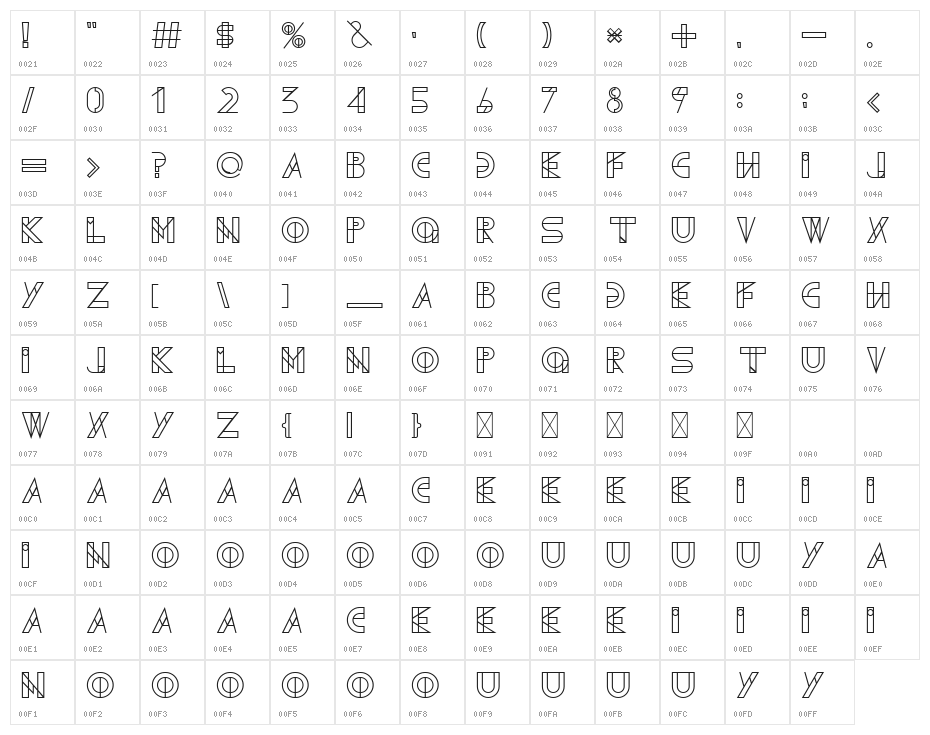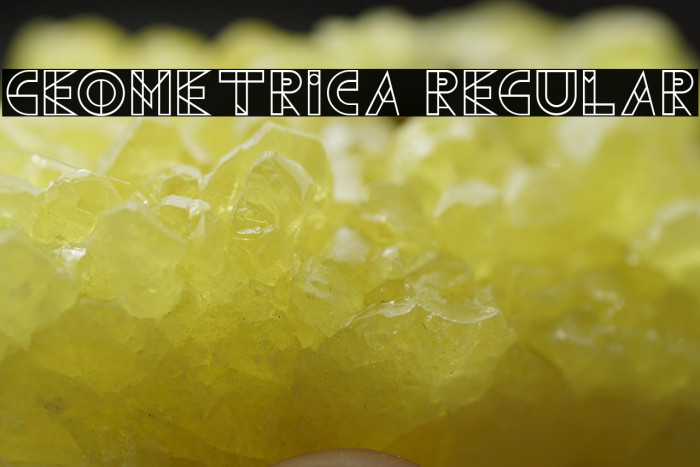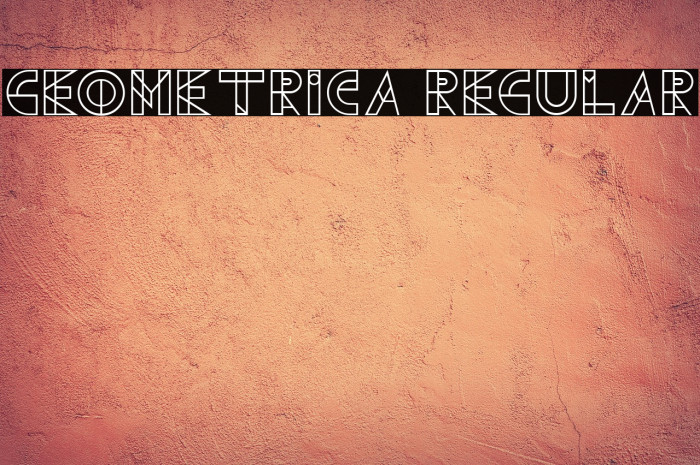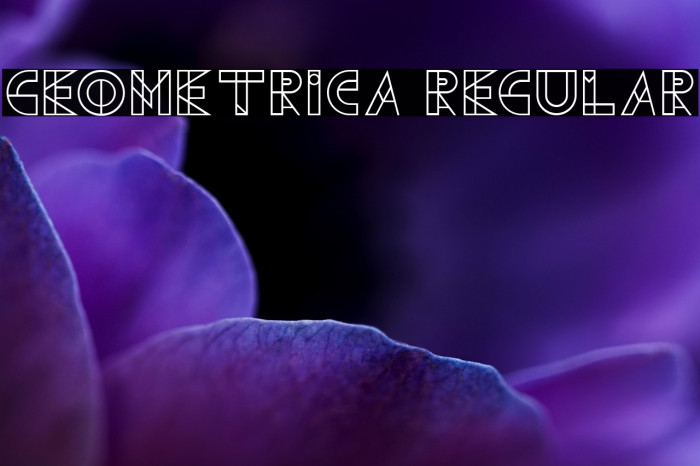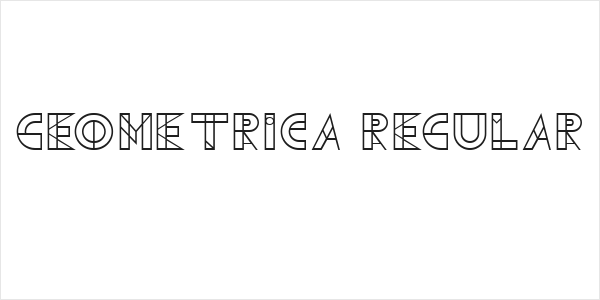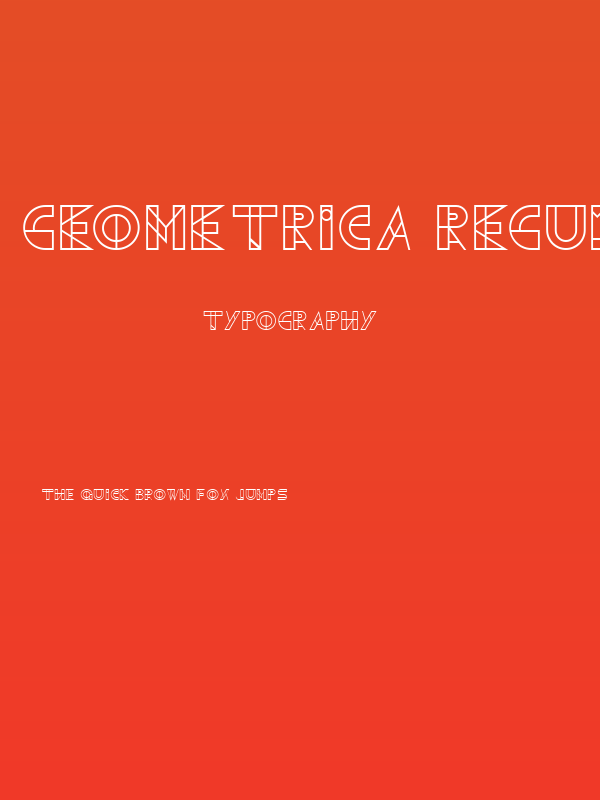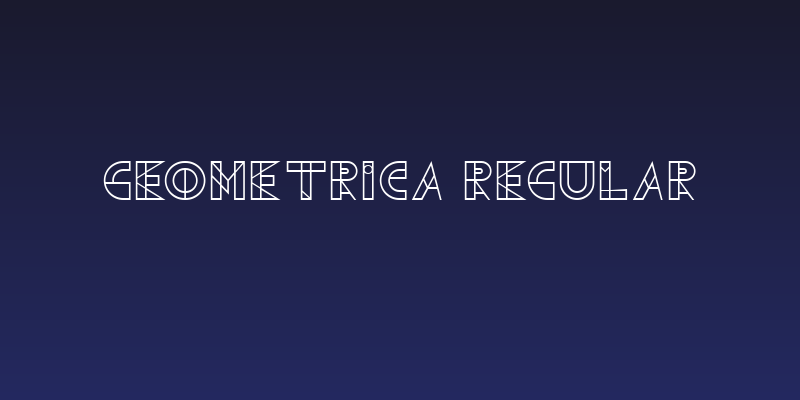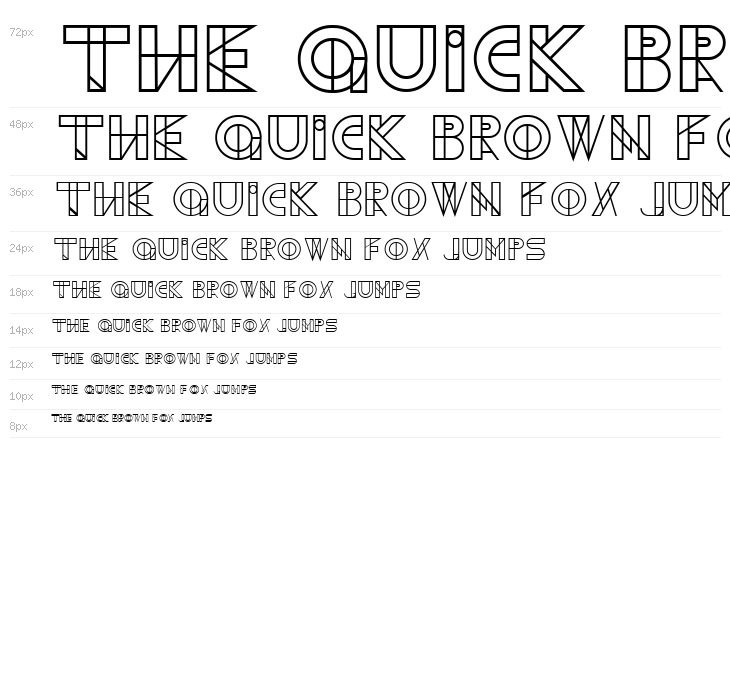
Geometrica Regular Font
Geometrica Regular Description
This font features a geometric and modern design with a distinct use of lines and shapes to form each character. The uppercase and lowercase letters are constructed with a combination of straight lines and circular arcs, creating a sense of symmetry and balance. The numerals and special characters follow the same geometric principles, ensuring consistency across the entire typeface. The open and airy design gives it a futuristic and clean appearance, making it suitable for contemporary design projects. The font's unique style is eye-catching and can be used to make a bold statement in various applications.
| Proposed Projects | Ideal for branding, logos, posters, and digital media where a modern and distinctive look is desired. |